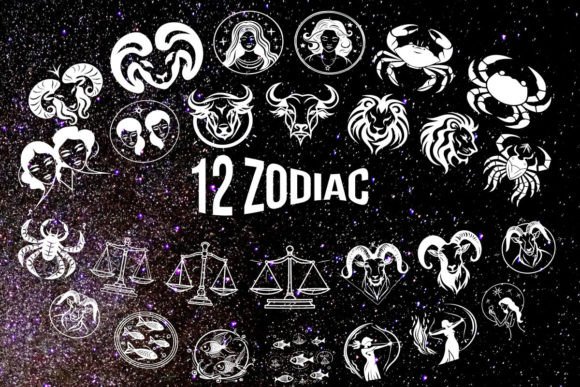
Unlocking Cosmic Creativity: A Deep Dive into Dingbats’ 12 Zodiac Symbols
I’ll never forget the moment I was working on a design project for a client who was a self-proclaimed astrology enthusiast. She wanted a unique font that would capture the essence of her zodiac sign, but I was struggling to find the perfect fit. That’s when I stumbled upon Dingbats’ 12 Zodiac Symbols, and it was a game-changer. The collection’s celestial characters not only met but exceeded my expectations, adding a touch of cosmic charm to my design. In this article, I’ll share my experience with this amazing font, its features, and how to make the most of it in your designs.
• ✨ Unique and stylized zodiac symbols: Each symbol is meticulously crafted to represent its corresponding zodiac sign, making it perfect for astrology-themed designs.
• ✅ Easy to use: The font is compatible with various design platforms, and the OpenType features make it easy to access the different glyphs and stylistic alternates.
• 🌟 Cosmic charm: The font’s celestial theme adds a touch of mystique to any design, making it perfect for projects that require a bit of whimsy.
• ⚠️ Limited character set: As a symbol font, Dingbats’ 12 Zodiac Symbols has a limited character set, which might not be suitable for projects that require a wide range of characters.
• 🤔 Requires some exploration: To get the most out of the font, you’ll need to explore the OpenType features and glyphs, which might take some time to get familiar with.
Dingbats’ 12 Zodiac Symbols was inspired by the ancient art of astrology and the mystique of the cosmos. The font’s creator, a renowned type designer, was fascinated by the symbolism and mythology surrounding the zodiac signs. The result is a collection of celestial characters that not only capture the essence of each sign but also add a touch of whimsy to any design.
In conclusion, Dingbats’ 12 Zodiac Symbols is a unique and versatile font that’s perfect for designers, crafters, and creative hobbyists who want to add a touch of cosmic charm to their projects. With its stylized zodiac symbols, OpenType features, and compatibility with various design platforms, this font is sure to inspire your creativity and take your designs to the next level.